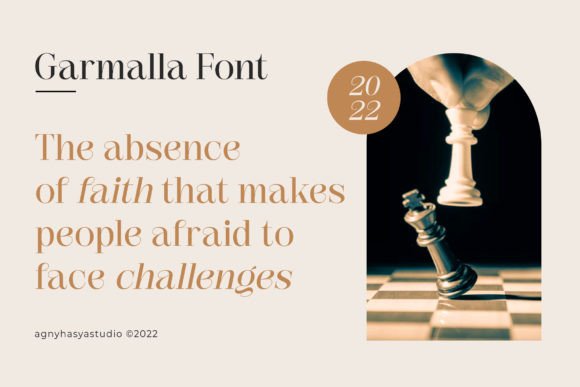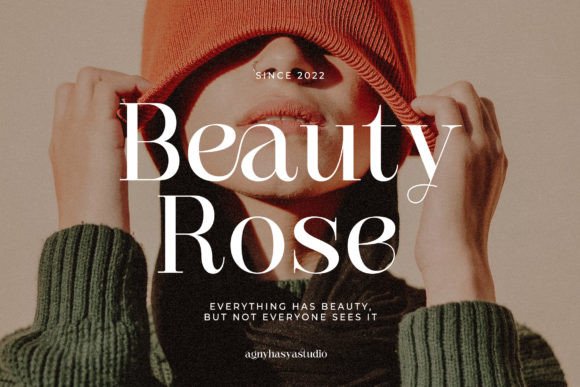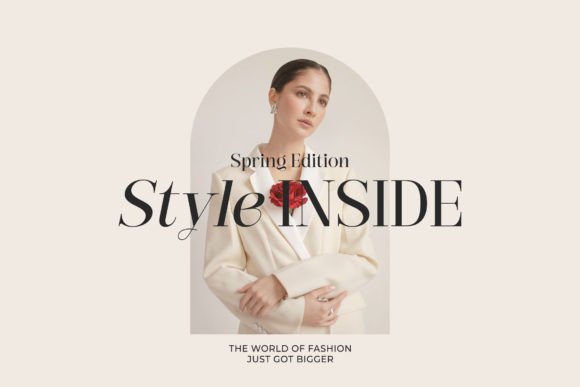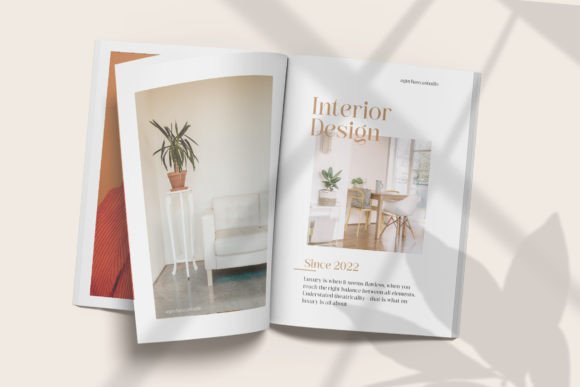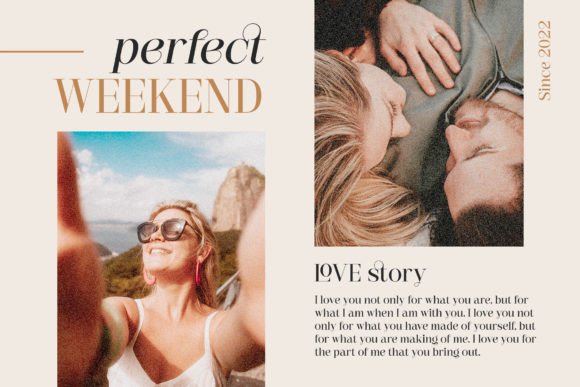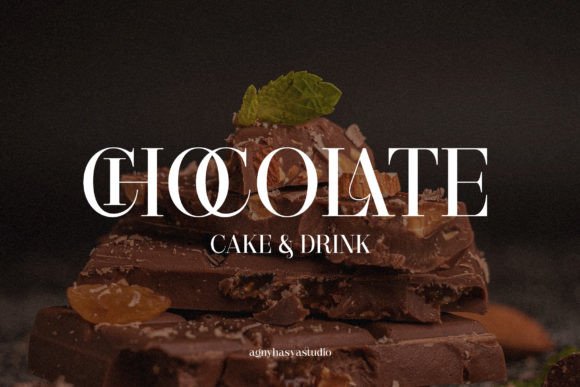
Introduction to Garmalla Font
Have you ever been stuck on a design project, staring at a blank page, and suddenly, a spark of creativity hits you? The words start flowing, and the perfect font pops into your mind. For designers, finding the right font can make all the difference between a mediocre design and a masterpiece. And that’s where the Garmalla Font comes in – a stunning display serif typeface that’s sure to elevate your creative project.
This high-quality font is more than just a pretty face; it’s a treasure trove of glyph variations, including alternates and ligatures, waiting to be combined into the perfect typography design. With its transparent background and PUA encoded features, accessing all the amazing glyphs and ligatures is a breeze. Whether you’re working on a free download or a commercial project, the Garmalla Font is an invaluable resource for designers looking to add a touch of elegance and sophistication to their work.
Key Features of Garmalla Font
- Unique, elegant font style with a transparent background, allowing for versatility in design.
- Features a clean, modern aesthetic, making it suitable for a wide range of design applications.
- Designed to be highly legible, making it perfect for body text, headings, and titles in creative projects.
Honest Review: Garmalla Font
I recently stumbled upon the Garmalla Font, a free download that caught my attention with its high quality and unique aesthetic. As a designer, I was excited to incorporate this font into my creative project.
- ✨ The Garmalla Font is perfect for creating visually appealing titles and headings. Its bold and playful design makes it an excellent choice for modern designs.
- ✨ I appreciate the transparent background option, which gives me the flexibility to place the font over various backgrounds without any issues.
- ✨ The font is highly customizable, allowing me to adjust the size, color, and style to fit my design needs.
- ⚠️ The font library is relatively small, which may not be ideal for complex designs that require multiple font styles.
- ⚠️ I experienced some compatibility issues with older software versions, which may be a concern for designers working on legacy projects.
Overall, I’m impressed with the Garmalla Font’s quality and versatility. While it may have some limitations, I believe it’s a valuable addition to any designer’s toolkit. With some creative experimentation, I’m confident that this font can help take my designs to the next level.
The Garmalla Font is ideal for use in creative projects such as logo design, branding, and typography-based art. Its elegant and sophisticated style makes it perfect for use in wedding invitations, business cards, and other formal designs.